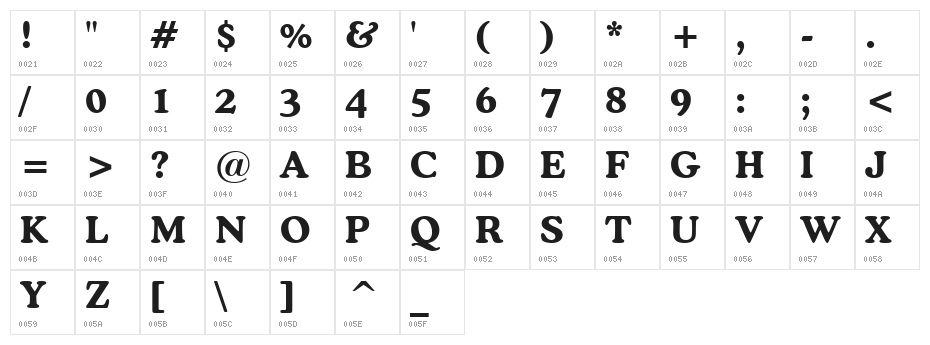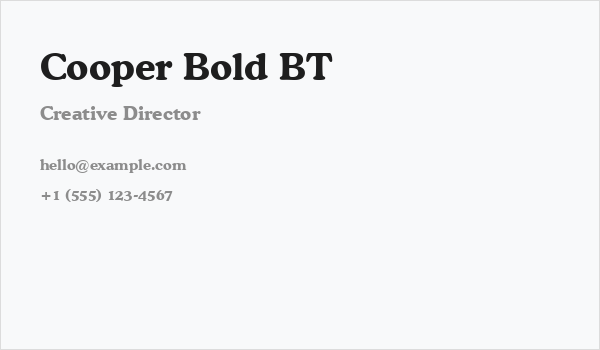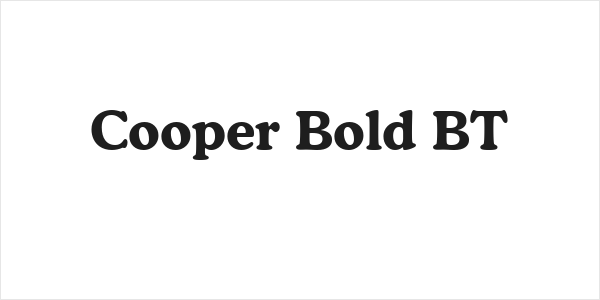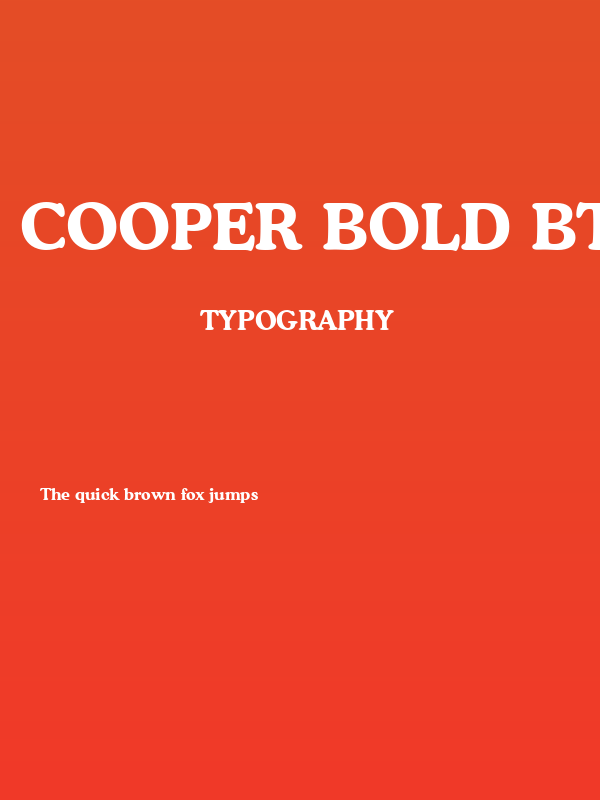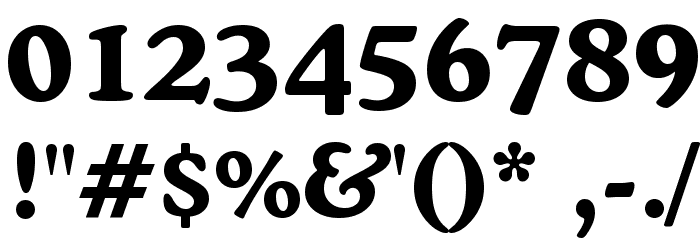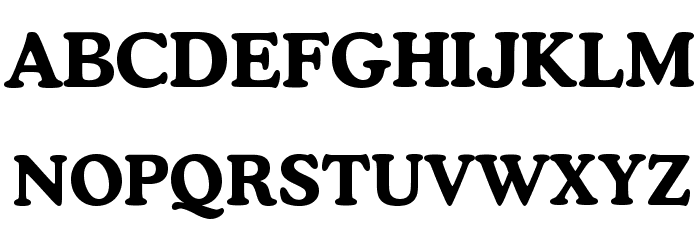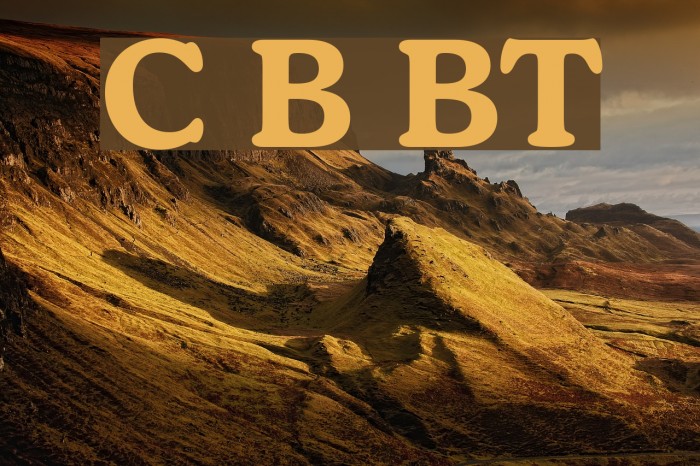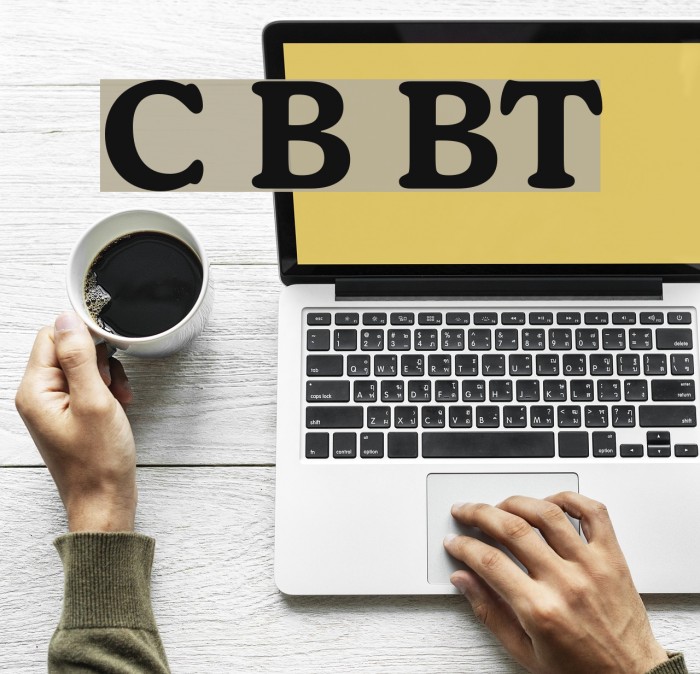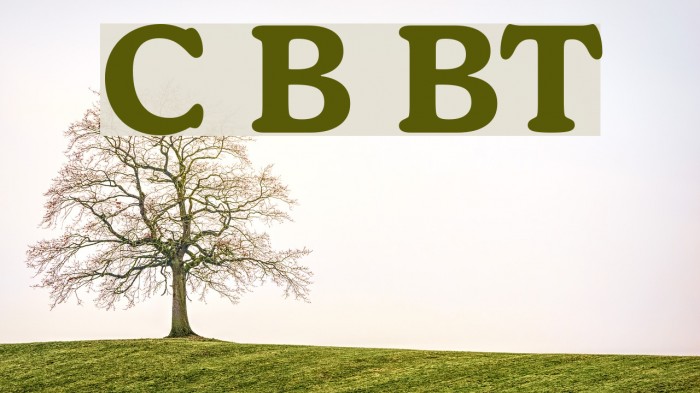
Cooper Bold BT Font
Cooper Bold BT Description
This font features a bold and rounded serif style, characterized by its thick strokes and smooth curves. The letters have a playful and friendly appearance, with a strong presence that makes them stand out. The uppercase letters are robust and commanding, while the lowercase letters maintain a consistent weight and style. Numbers and special characters follow the same bold and rounded design, ensuring uniformity across all characters. The font's overall appearance is both classic and approachable, making it suitable for a variety of design applications.
| Proposed Projects | Ideal for branding, headlines, posters, and packaging design where a strong and approachable look is desired. |